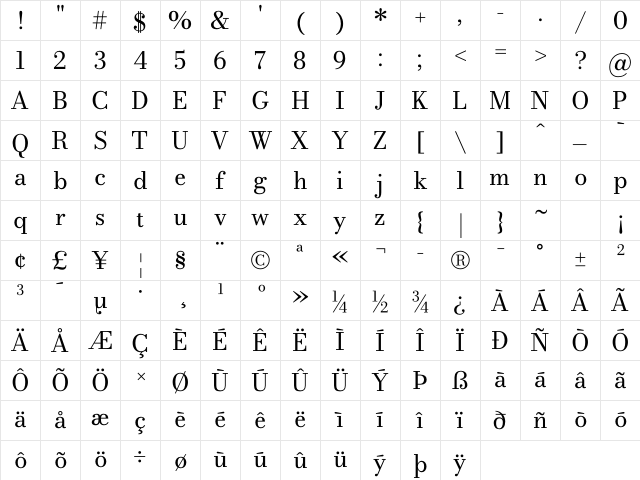
Bodoni* 06 Regular Free Font
Bodoni* 06 Regular
Design Context for Bodoni* 06
Bodoni* 06 is a composed and adaptable typeface that performs quietly and consistently across a wide range of design contexts.